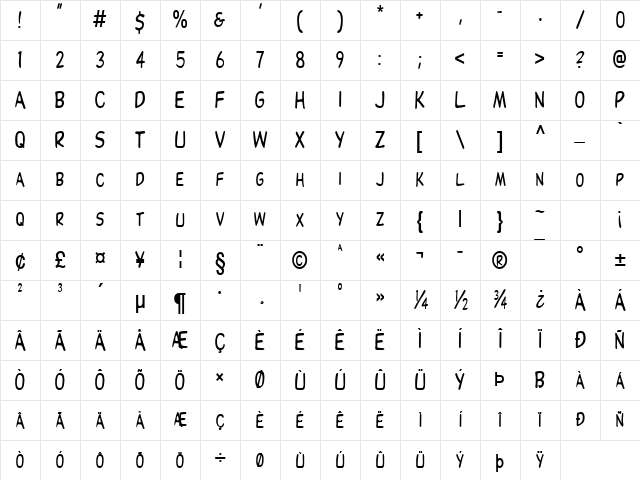
Elizabeth-Condensed Bold
Elizabeth-Condensed Family
Elizabeth-Condensed Bold
Design Context for Elizabeth-Condensed
Elizabeth-Condensed is a composed and adaptable typeface that performs quietly and consistently across a wide range of design contexts. Its bold stroke weight gives it real presence on the page. Its narrow stance lets it pack a punch even in space-constrained designs.